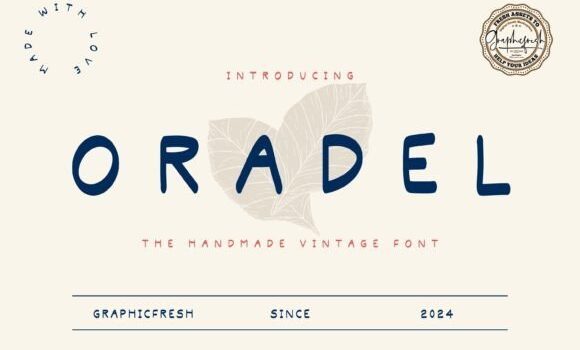
oradel
Oradel Font – Free Download Introduction to Oradel Font Oradel offers a unique combination of a clean, sans-serif display style with a touch of handwritten charm. 📸 Preview Gallery 6 images 📌 Product Name Oradel Font 👤 Author Graphicfresh 📂